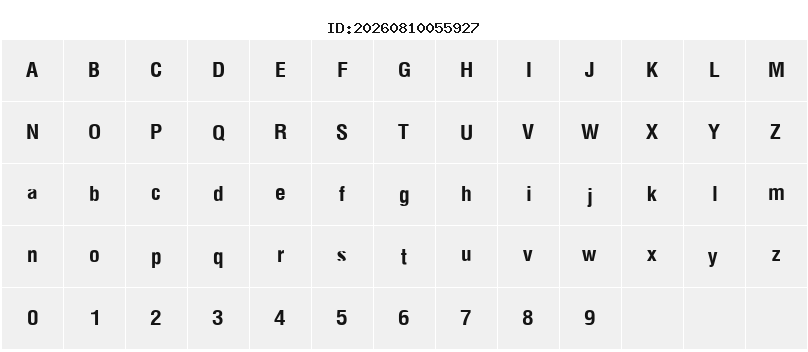
• Font Name: PSL Display
• Font ID: PhanlopThongsuk: PSL Display Bold: 1999
• Full Font Name: PSL Display Bold
PSL Display.ttf is a modern, elegant sans-serif font designed for ultimate readability and visual harmony. Perfect for branding, headlines, web design, and print materials.